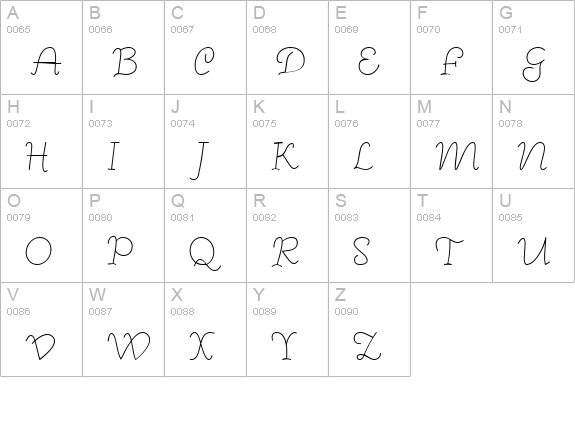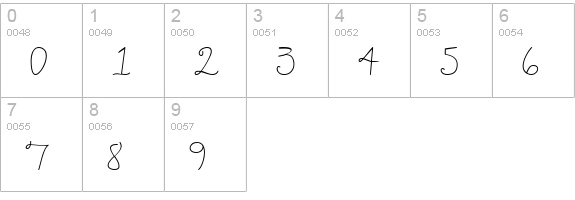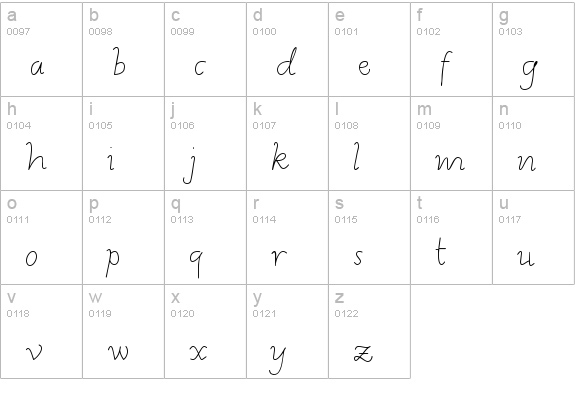
CK Nostalgia Font Details
Introducing CK Nostalgia, a charming and whimsical font that evokes a sense of nostalgia and retro vibes. This versatile typeface features a unique blend of vintage elegance and modern appeal, making it perfect for a wide range of creative projects. With its playful curves and stylish flair, CK Nostalgia is ideal for branding, packaging, invitations, and more. Best of all, CK Nostalgia is completely free to download at FontsMarket.com. Whether you're a seasoned designer or just starting out, this font is sure to add a touch of nostalgia and personality to your work. Don't miss out on the opportunity to enhance your designs with this delightful and eye-catching typeface. Download CK Nostalgia today and let your creativity shine!